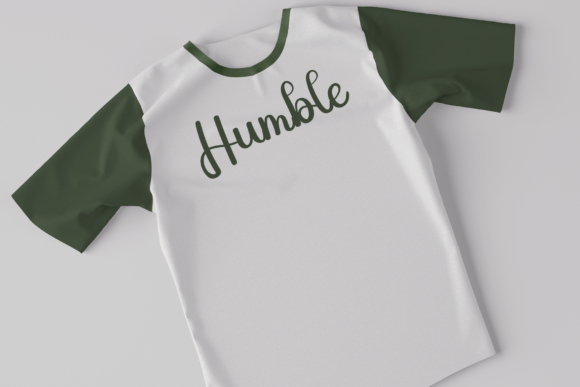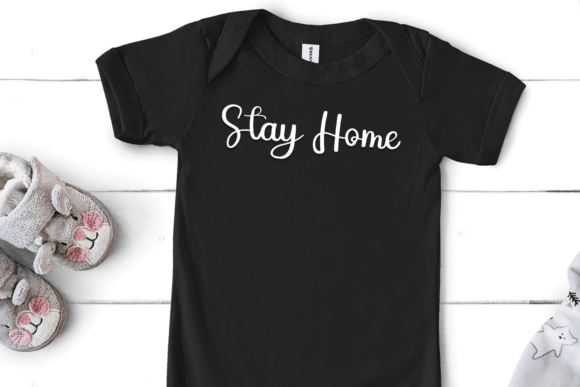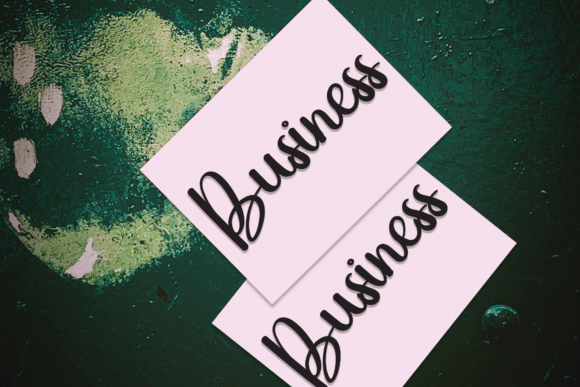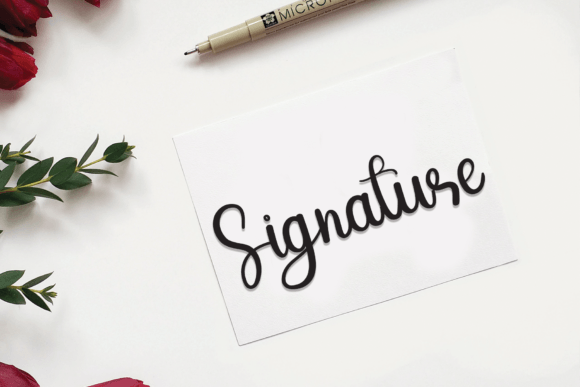
The Perfect Font for Your Special Moments
Remember the feeling of holding your newborn baby in your arms for the first time? It’s a moment that’s full of love, joy, and serenity. That’s exactly the kind of feeling you want to convey when creating something special – like a wedding invitation or a birthday card. And that’s where the Baby Child Font comes in – a sweet and smooth handwritten font that’s sure to capture the essence of your emotions.
With its cute and playful design, the Baby Child Font is perfect for adding a romantic and personal touch to any design. Whether you’re a seasoned designer or just starting out, this font is a valuable addition to your toolkit. Its versatility and charm make it an ideal choice for a wide range of projects, from wedding invitations to children’s birthday cards.
Baby Child Font Key Features
- Font Size: 300 glyphs, including Latin, Cyrillic, and Greek characters
- Unique Characteristics: Designed with a playful, cursive style, perfect for children’s products and educational materials
- Font Weight: Available in regular and bold weights for added flexibility
Designer Review: Baby Child Font
First of all, I have to say that I’m impressed by the playful and whimsical feel of Baby Child Font. It’s a great choice for projects that need a touch of innocence and charm. ✨ The rounded shapes and soft lines create a sense of warmth and approachability, making it perfect for children’s books, nursery decor, or any other project that requires a gentle tone. ✨
Another great aspect of this font is its versatility. It comes in a range of weights, from light to bold, which allows designers to adjust the font’s intensity to suit their needs. Additionally, the font’s OpenType features make it easy to add subtle flourishes and decorations, adding an extra layer of personality to the design. ✨
- ⚠️ Limited character set: While the font has a wide range of weights and OpenType features, its character set is relatively limited compared to other fonts on the market.
- ⚠️ Not ideal for complex texts: Due to its playful and rounded design, Baby Child Font may not be the best choice for projects that require a lot of complex text or technical information.
Overall, I think Baby Child Font is a great addition to any designer’s toolkit. While it has some limitations, its unique charm and versatility make it a great choice for the right projects. With a little creativity, designers can unlock the full potential of this font and create truly memorable designs.
Here are some tips for getting the most out of the Baby Child Font:
- Use it for children’s products or services, such as baby clothing or kids’ entertainment
- Combine it with playful graphics or illustrations
- Use it for titles or headings to add a touch of whimsy
The Baby Child Font is commonly used for:
- Baby clothing and accessories
- Kids’ entertainment and education
- Children’s products and services
Alternatives to Baby Child Font for Designers
Luckiest Guy Font
Luckiest Guy Font is a fun, cursive font perfect for creating a playful and whimsical atmosphere. It’s ideal for designing children’s products, party invitations, and other festive materials.
Compared to Baby Child Font, Luckiest Guy Font has a more casual and laid-back feel, making it suitable for a wider range of applications. While Baby Child Font is more elegant and sophisticated, Luckiest Guy Font is more carefree and fun.
Great Vibes Font is a beautiful, handwritten font that exudes a sense of joy and optimism. It’s perfect for creating eye-catching headlines, quotes, and other text-based designs.
Compared to Baby Child Font, Great Vibes Font has a more dynamic and expressive feel, making it ideal for designs that require a lot of personality and flair. While Baby Child Font is more refined and elegant, Great Vibes Font is more playful and energetic.
Sophia Script Font
Sophia Script Font is a elegant, cursive font that’s perfect for creating a sophisticated and refined atmosphere. It’s ideal for designing wedding invitations, luxury products, and other high-end materials.